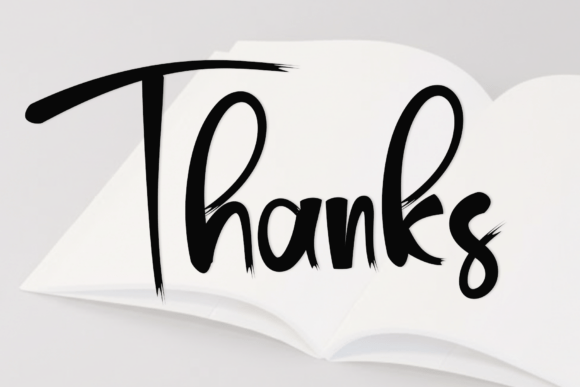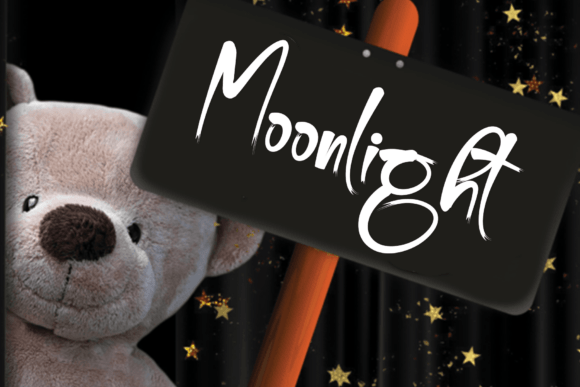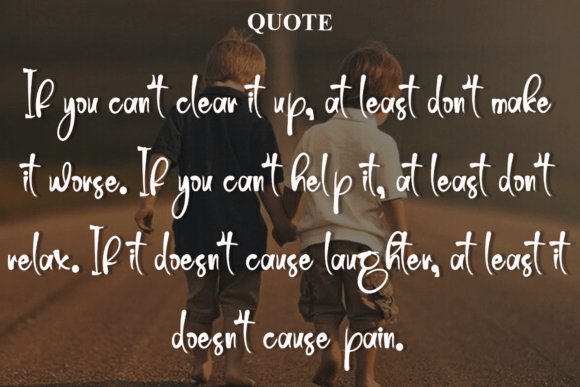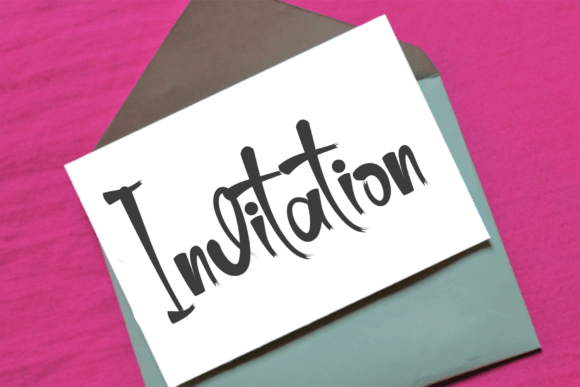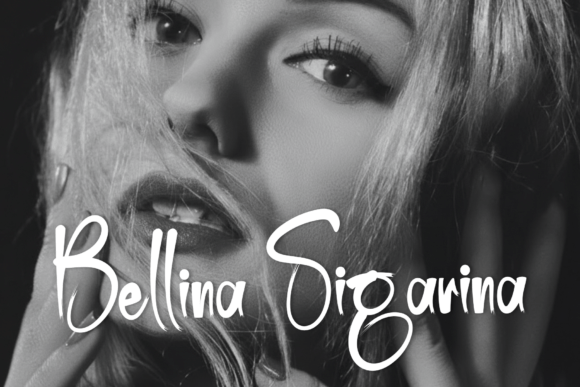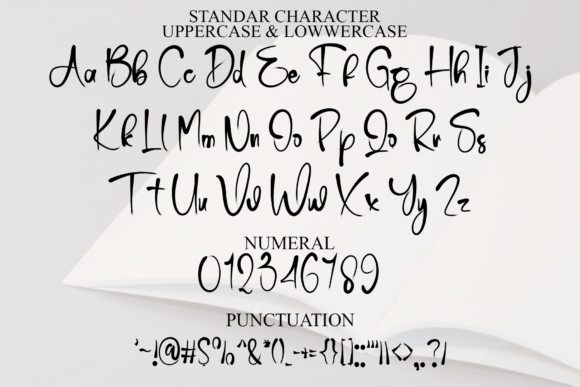
Have you ever been stuck on a design project, searching for the perfect font to give it that extra oomph? Maybe you’ve scrolled through font libraries, only to end up with a generic, uninviting choice. But what if you could add a dash of personality to your design with a font that’s as warm and friendly as a cup of coffee on a Sunday morning?
Enter the Angela Signature Font, a delightful and casual typeface that’s perfect for personal projects, invitations, and social media graphics. With its playful, hand-drawn strokes, this font adds a unique touch to any design, making it a valuable asset for designers looking to elevate their work. Whether you’re a seasoned pro or a design newbie, the Angela Signature Font is sure to bring a smile to your face and a creative spark to your projects.
Key Features of Angela Signature Font
- Unique Characteristics: Angela Signature Font features a unique blend of elegant and playful elements, with intricate details and flourishes that add a touch of sophistication to any design.
- Script and Brushstrokes: The font includes a range of script and brushstroke styles, allowing designers to create dynamic and expressive text effects.
Angela Signature Font Review
Overall, I think the Angela Signature Font is a solid addition to any designer’s toolkit. ✨ It’s got a certain charm and elegance to it, making it perfect for creating invitations, greeting cards, and other social stationery. The font is highly customizable, allowing you to adjust the spacing, letter size, and even add a personal touch with its advanced features.
The Angela Signature Font also supports a wide range of languages, making it a great option for international clients. ✨ It’s also highly legible, even at small font sizes, which is a major plus in my book.
- Charming and elegant design
- Supports multiple languages
- Legible at small font sizes
- May not be suitable for formal or corporate documents
- Can be quite ornate, making it difficult to read at very small sizes
- Some users may find the font too whimsical or cursive
Overall, I would give the Angela Signature Font 4 out of 5 stars. It’s a beautiful font that’s perfect for creative projects, but may not be the best choice for more formal or professional work.
Getting the Most Out of Angela Signature Font
Use the Angela Signature Font for headings, titles, and quotes to add a touch of elegance to your designs.
Combine it with bold colors and creative layouts to make your designs stand out.
Use the Angela Signature Font for:
– Blog posts and articles
– Business cards and letterheads
– Wedding invitations and decor
Alternatives to Angela Signature Font
Ostrich Sans is a modern sans-serif font that is highly legible and versatile. It is ideal for use in digital products, such as apps, websites, and mobile interfaces. Ostrich Sans is similar to Angela Signature Font in its clean and minimalist design, but it has a more geometric feel and a wider range of weights.
Lato is a sans-serif font that is highly customizable and adaptable to various design contexts. It is suitable for use in editorial design, branding, and advertising. Lato has a similar feel to Angela Signature Font, but it is more condensed and has a slightly more aggressive feel.
Avenir is a geometric sans-serif font that is highly legible and versatile. It is ideal for use in high-end branding, advertising, and editorial design. Avenir has a similar feel to Angela Signature Font, but it is more formal and has a more pronounced geometric feel.